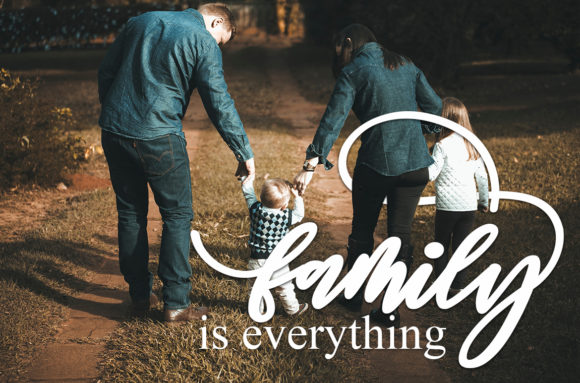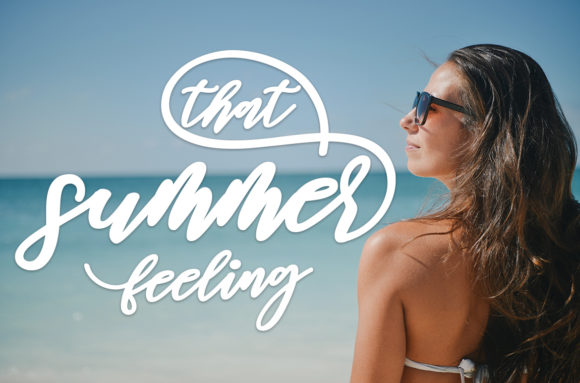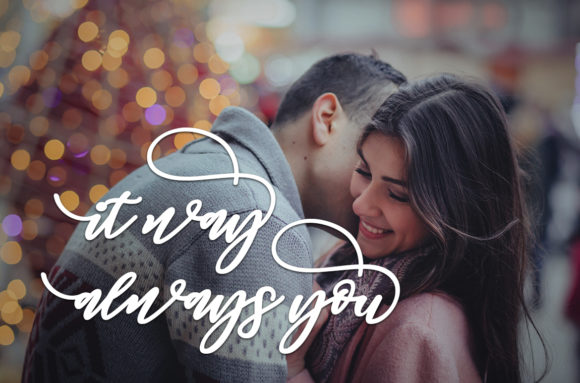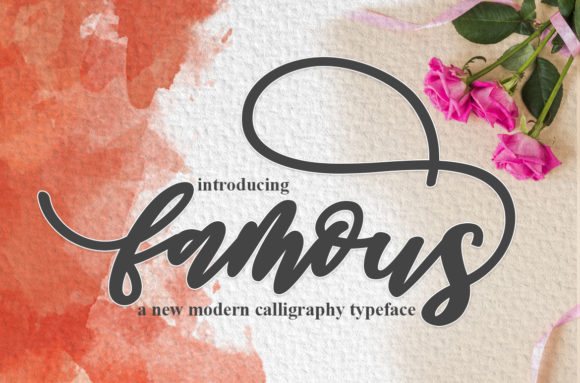
Famous Script Font
The Famous is a modern calligraphy font. It has a beautiful handwritten style and is perfect for branding, wedding invites, magazines, mugs, business cards, quotes, posters, and more.